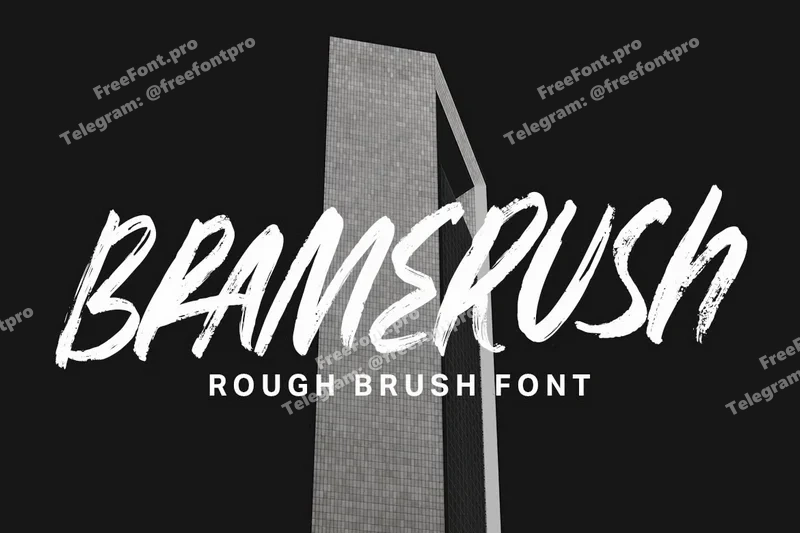
Bramerush – Rough Brush Font
Capture raw emotion and dynamic movement with Bramerush, a powerful rough brush font designed to inject an immediate burst of energy into any project. This typeface masterfully simulates the texture and immediacy of hand-painted brushstrokes, delivering an authentic, high-impact aesthetic that demands attention. Bramerush is not simply a set of characters; it’s a visual shout, embodying spontaneity and a fearless attitude.
Unique Hand-Drawn Style